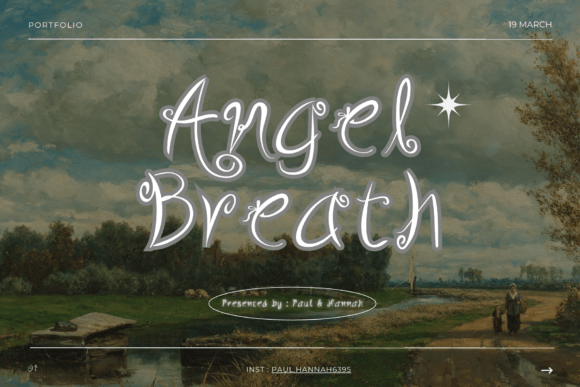
Find Your Creative Inspiration with Angel Breath Font
For designers seeking that perfect blend of uniqueness and elegance, the Angel Breath Font is a breath of fresh air. Inspired by the gentle breeze that heals both body and mind, this font is designed to be as soothing as it is beautiful. With its gentle curves and subtle nuances, the Angel Breath Font is perfect for creative works that require a touch of serenity.
Whether you’re designing a book cover, a website, or a social media campaign, the Angel Breath Font is a valuable addition to your toolkit. Its calming presence is sure to captivate your audience and leave a lasting impression.
Angel Breath Font Key Features
- Font Family: Angel Breath is a unique, hand-drawn font designed to evoke a sense of elegance and sophistication.
- Character Set: The font includes a comprehensive set of characters, including uppercase and lowercase letters, numerals, punctuation marks, and special characters.
- Unique Characteristics: Angel Breath features intricate, hand-drawn details and subtle texture, giving it a distinctive, artisanal feel.
Angel Breath Font Review
I recently had the chance to work with the Angel Breath Font, and I must say it’s a unique and intriguing choice for designers.
- Unconventional style: The Angel Breath Font has a distinctive, airy feel to it, making it perfect for projects that require a touch of whimsy.
- Legibility: Despite its unconventional style, the font is surprisingly legible, even at smaller sizes.
- Great for title text: The font’s flair and personality make it an excellent choice for title text or headings.
- Limited versatility: The Angel Breath Font may not be the best choice for body text or long-form content, as its unconventional style can be overwhelming.
- May not be suitable for formal projects: The font’s playful, airy feel may not be suitable for formal or professional projects, such as business reports or academic papers.
The Angel Breath Font is a great choice for designers who want to add a touch of personality and whimsy to their projects. While it may not be suitable for all types of projects, it’s a great option for title text, headings, or any project that requires a unique and eye-catching font.
- Pair it with bold or italic fonts for added emphasis.
- Use it in combination with other elegant fonts for a cohesive look.
- Experiment with different font sizes and styles to achieve a unique effect.
Angel Breath Font is perfect for:
- Baby shower invitations and decorations.
- Formal events and parties.
Alternatives to Angel Breath Font
Ostrich Sans is a modern sans-serif font that is perfect for headlines and titles. It has a bold and playful feel, making it ideal for designs that require a touch of whimsy. Compared to Angel Breath Font, Ostrich Sans is more geometric and has a cleaner look, making it suitable for digital designs and branding materials.
Great Vibes is a beautiful script font that is perfect for adding a touch of elegance and sophistication to designs. It has a fluid and organic feel, making it ideal for invitations, weddings, and other special occasions. Compared to Angel Breath Font, Great Vibes is more cursive and has a softer look, making it suitable for designs that require a sense of romance and whimsy.